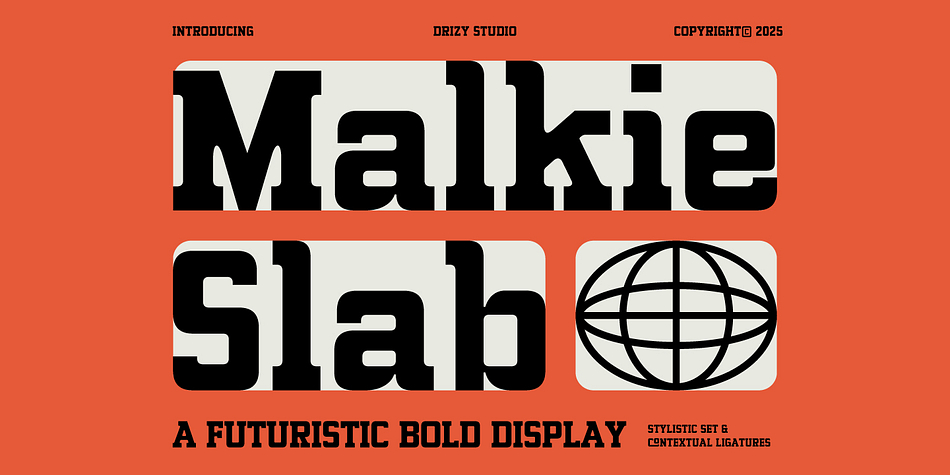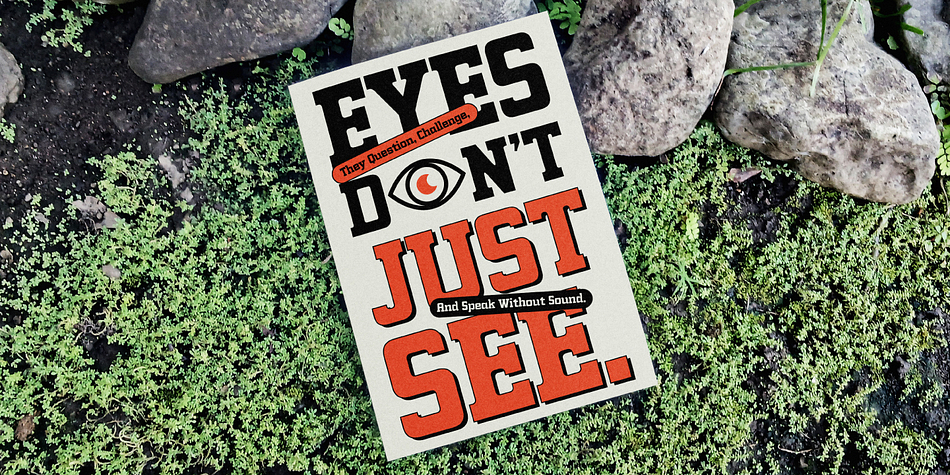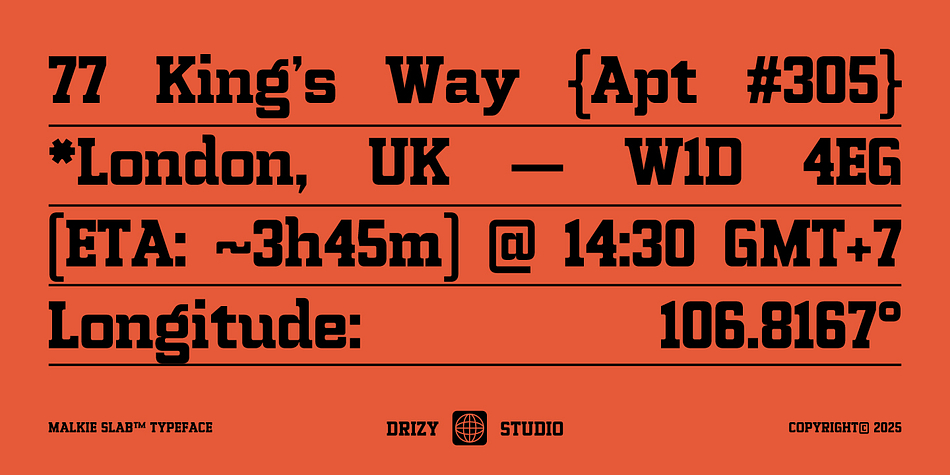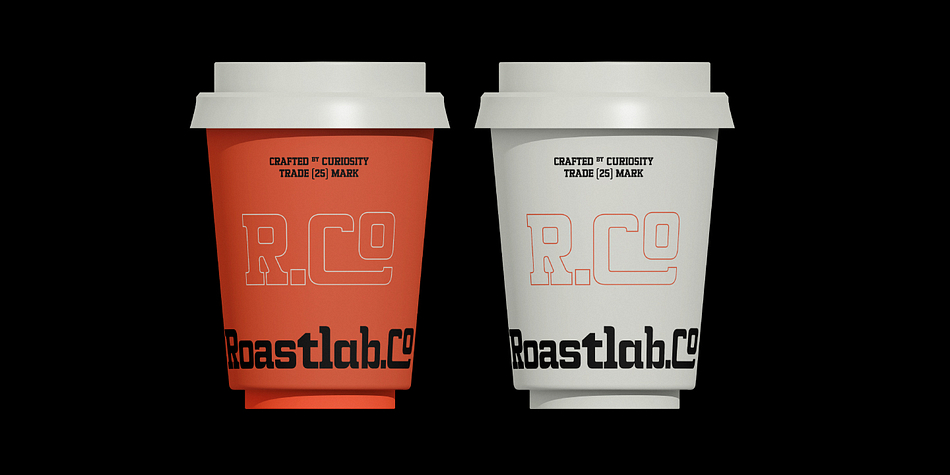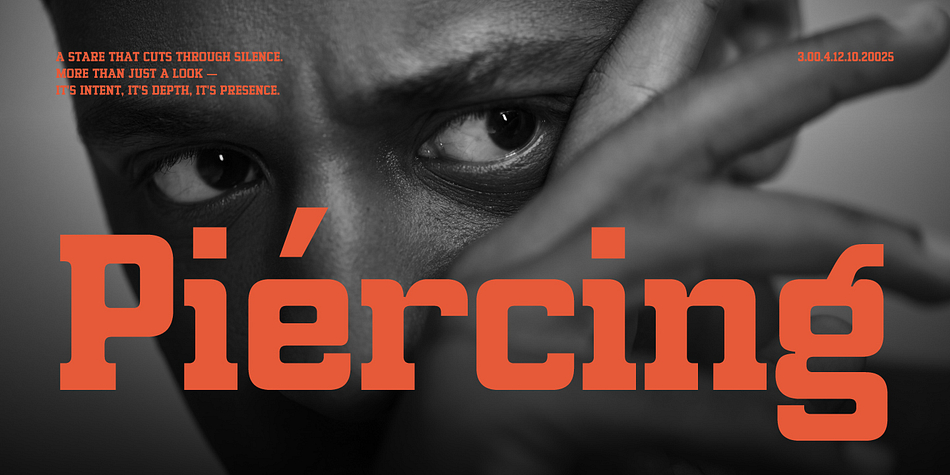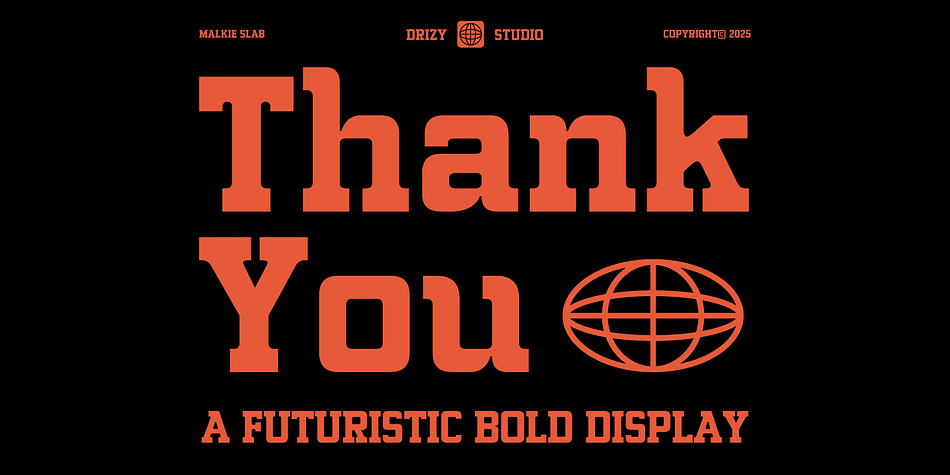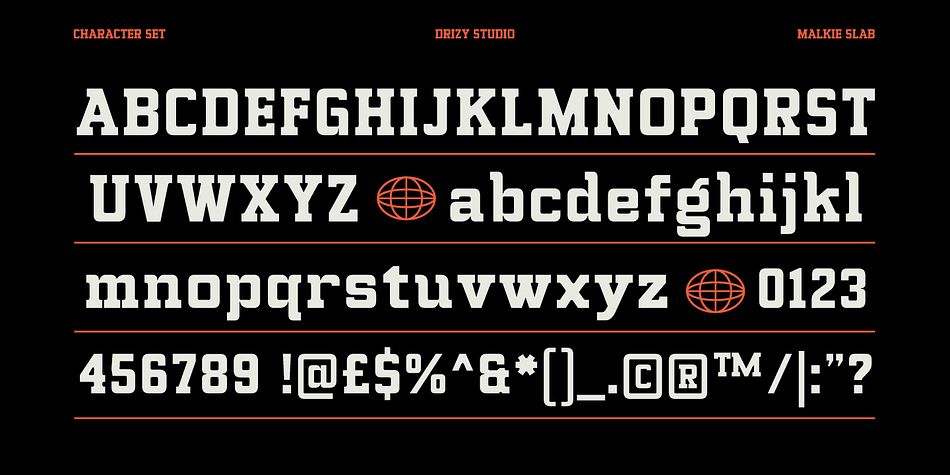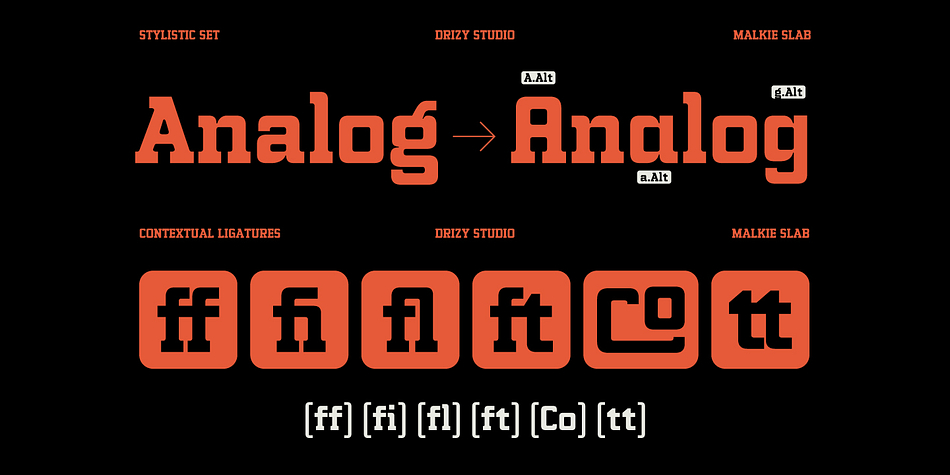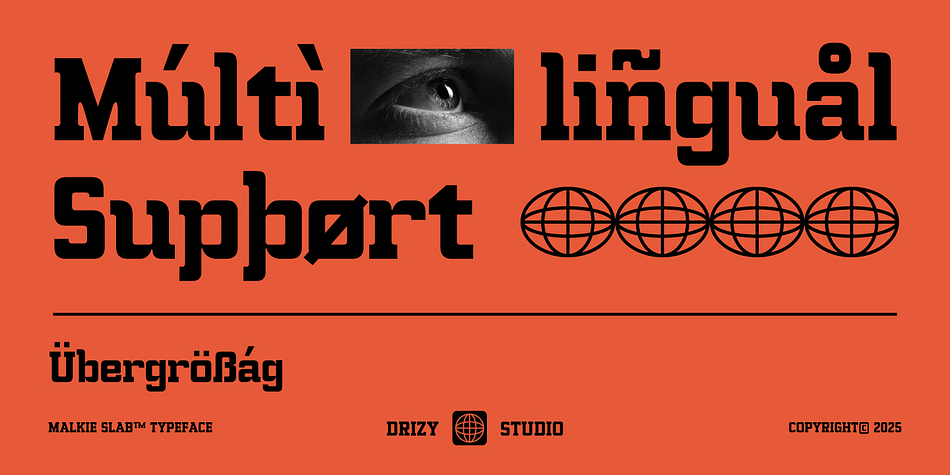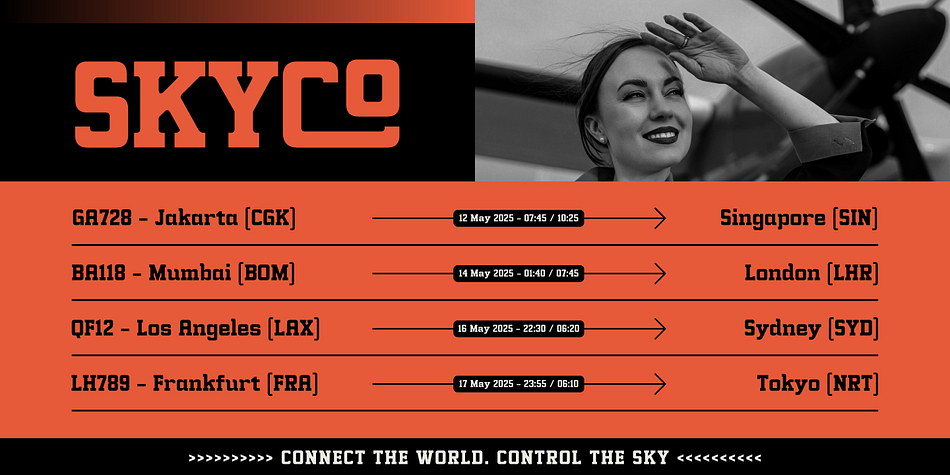
Malkie Slab
Designed by Panca Ahmadi Hasan, Malkie Slab is a slab serif font family published by Drizy Font.
Malkie Slab – Futuristic Bold Display Font
Malkie Slab – Futuristic Bold Display Font is a striking and modern typeface that stands at the intersection of boldness and innovation. This Square Slab Serif font exudes an edgy, futuristic vibe, making it ideal for contemporary designs that demand attention. With its sharp, geometric lines and robust, sturdy serifs, Malkie Slab brings a sense of power and structure to any project. The unique square shapes of the serifs give it a distinctive, high-tech feel, while maintaining the readability and legibility required for display purposes. Malkie Slab embodies the spirit of the future while nodding to classic slab serif elements.
Malkie Slab – Futuristic Bold Display Font features:
- Character Set (Uppercase & Lowercase)
- Punctuation & Numbers
- Contextual Ligature